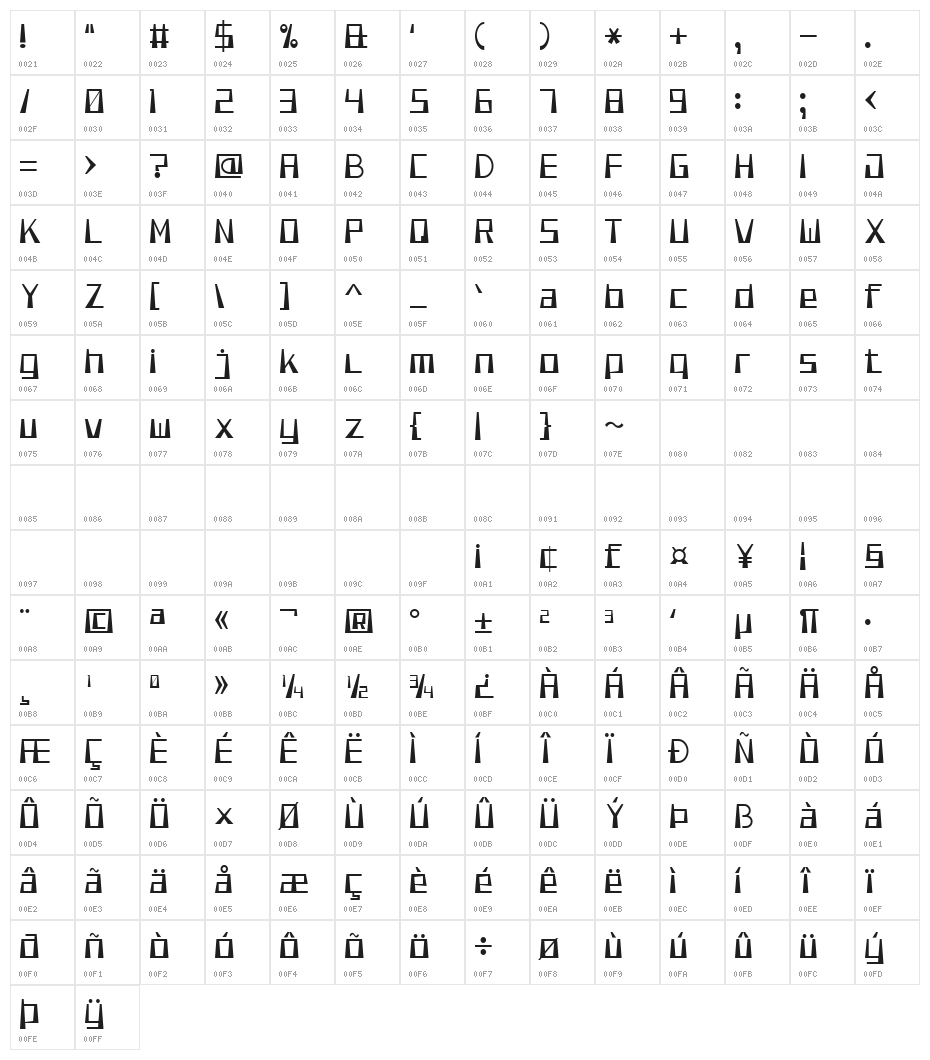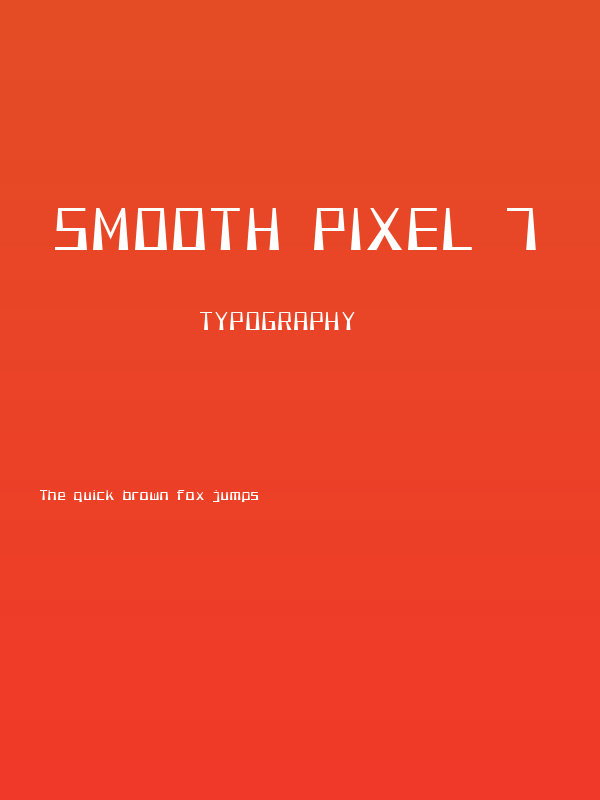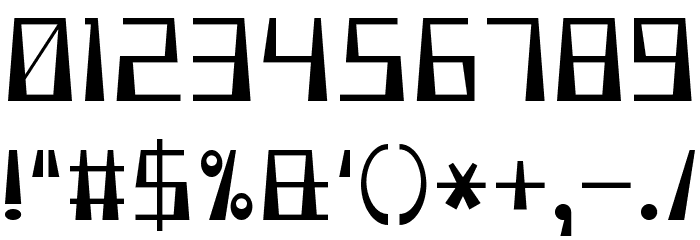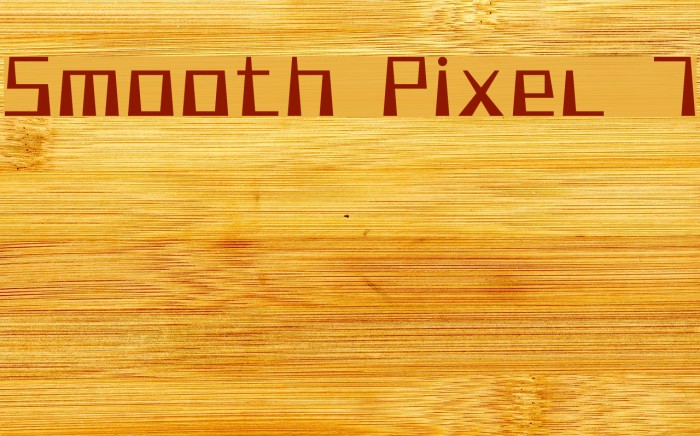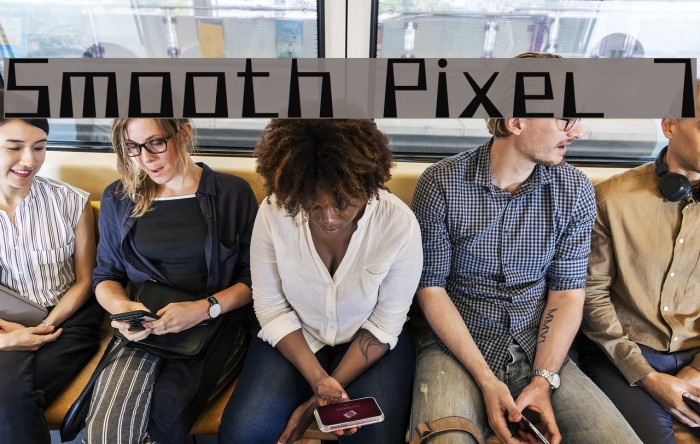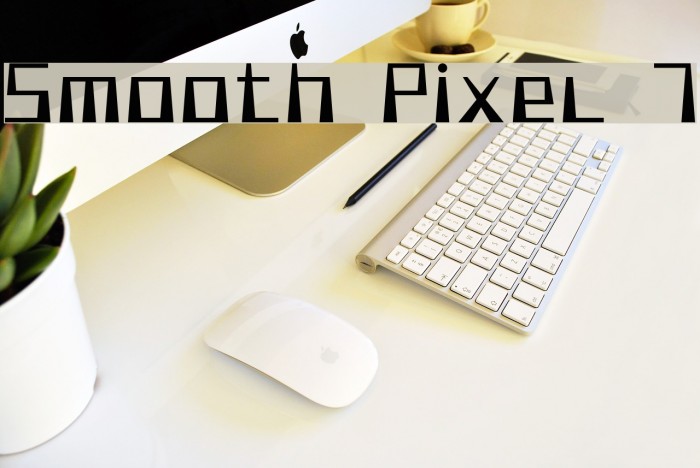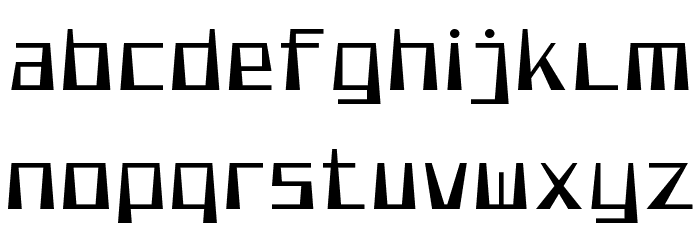
Smooth Pixel 7 Font
Smooth Pixel 7 Description
This font features a unique, geometric style with a futuristic flair. The characters are composed of sharp angles and straight lines, giving it a digital, pixelated appearance. The uppercase letters are bold and striking, while the lowercase letters maintain a consistent style with slightly softer edges. Numbers and special characters follow the same design principles, ensuring uniformity across all glyphs. The overall look is modern and tech-inspired, making it suitable for digital and print media that aim to convey a sense of innovation and forward-thinking.
| Use Case | Headlines, Logos, Digital media |
| Proposed Projects | Ideal for tech branding, video game design, digital art projects, and futuristic-themed posters. |